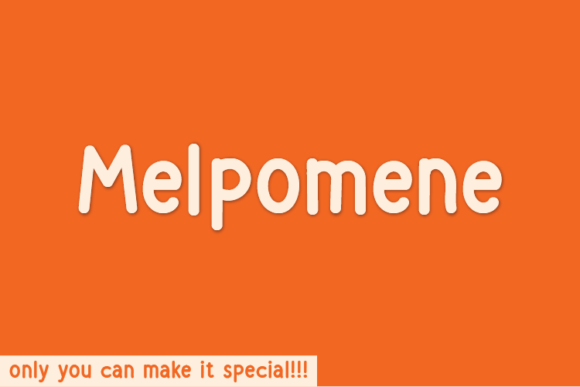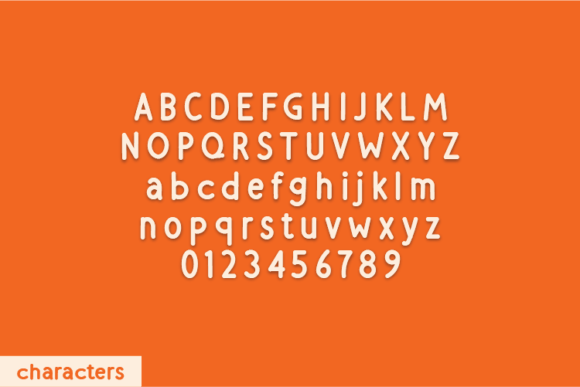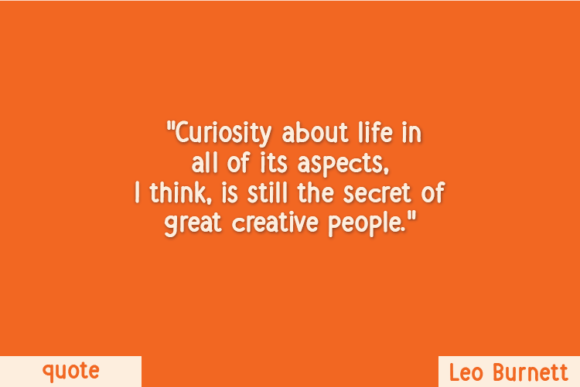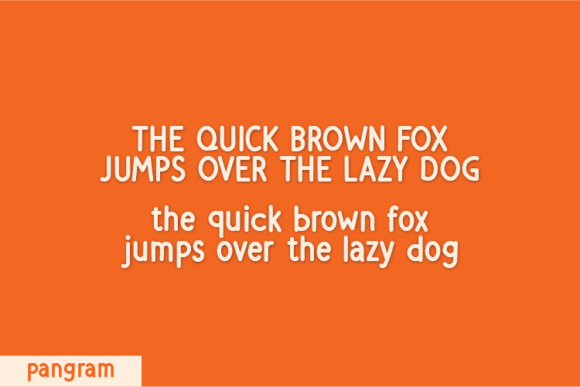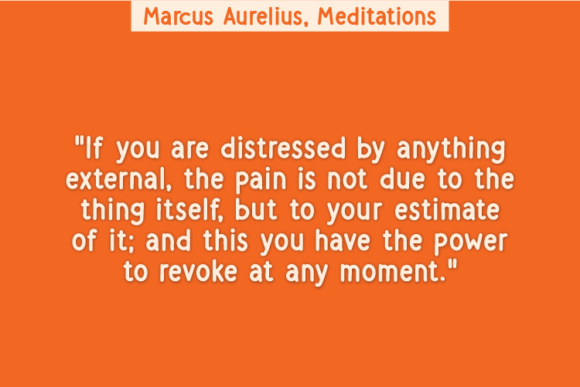
About Melpomene
Melpomene is a natural handwritten font made without changing a single node in each character’s indentation – this makes this font very interesting and unique. Perfect for quotes, notes, tees, and any product design.